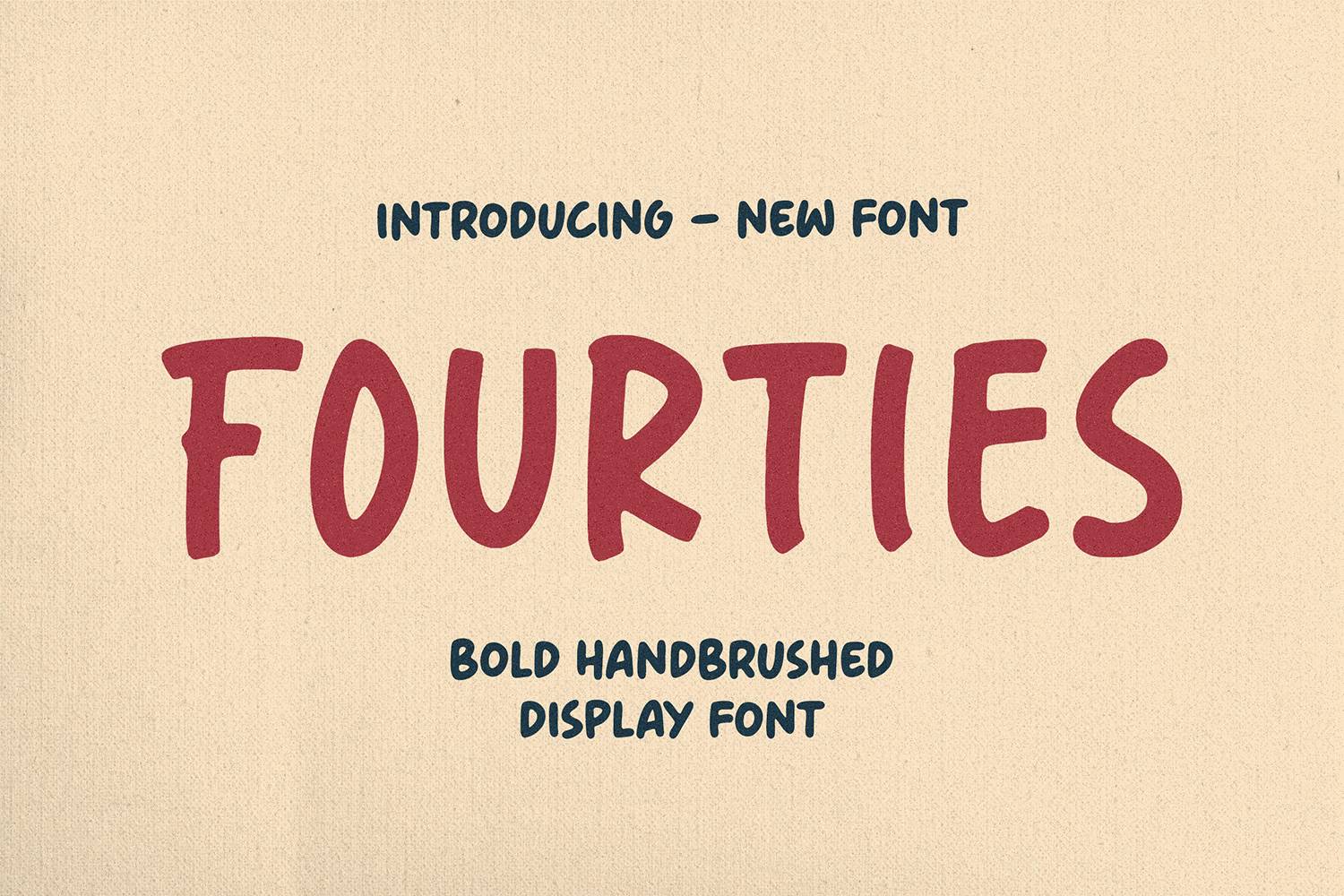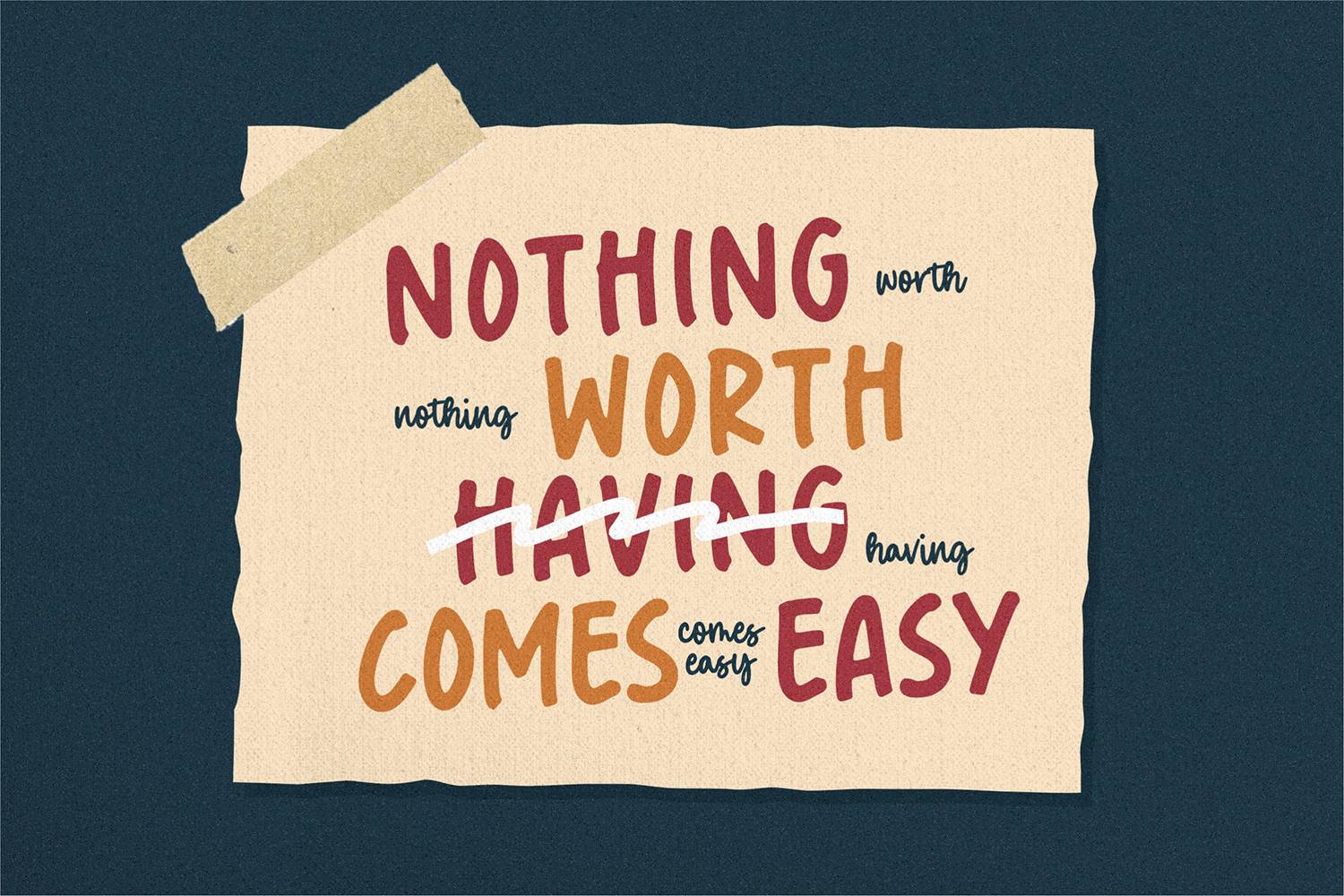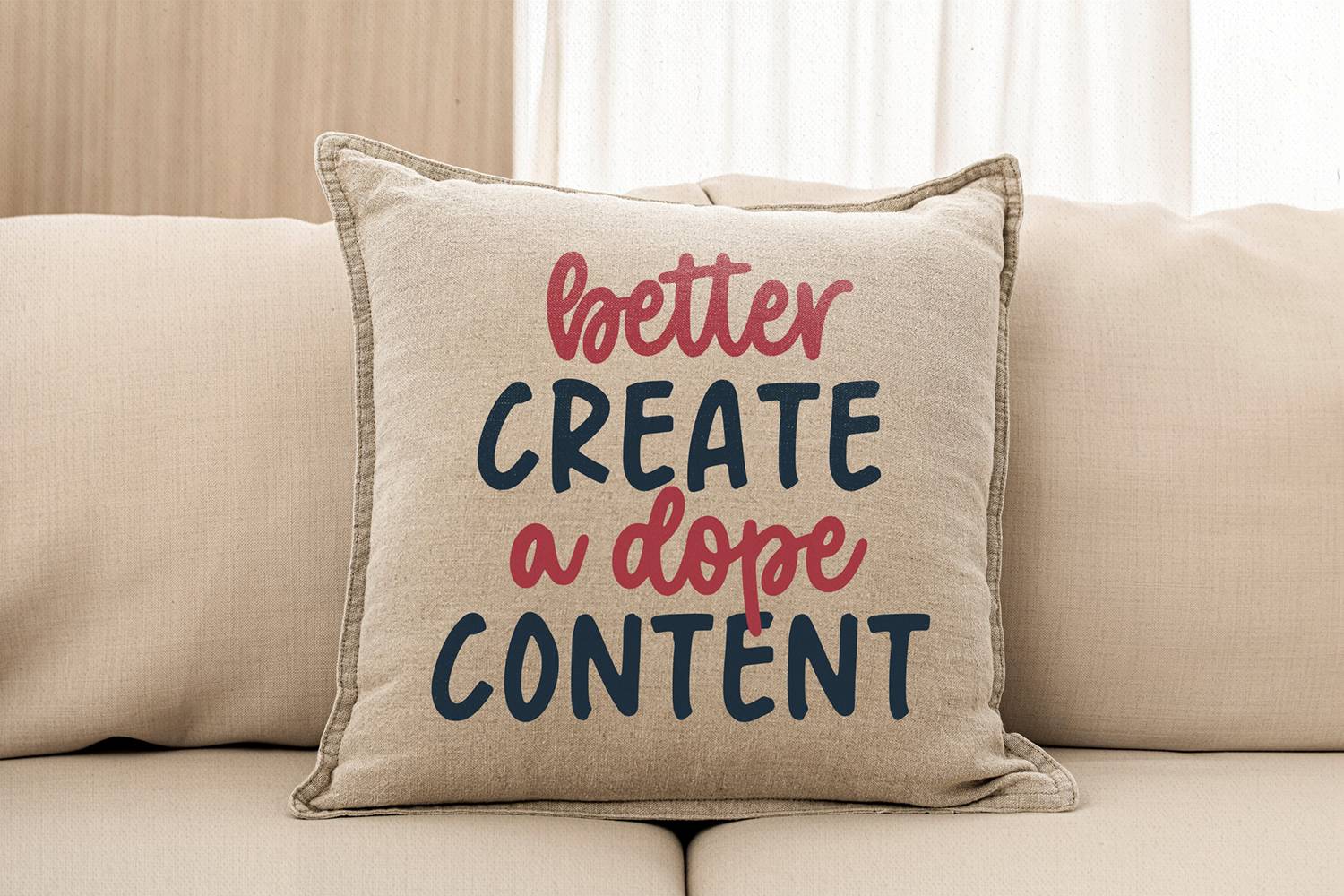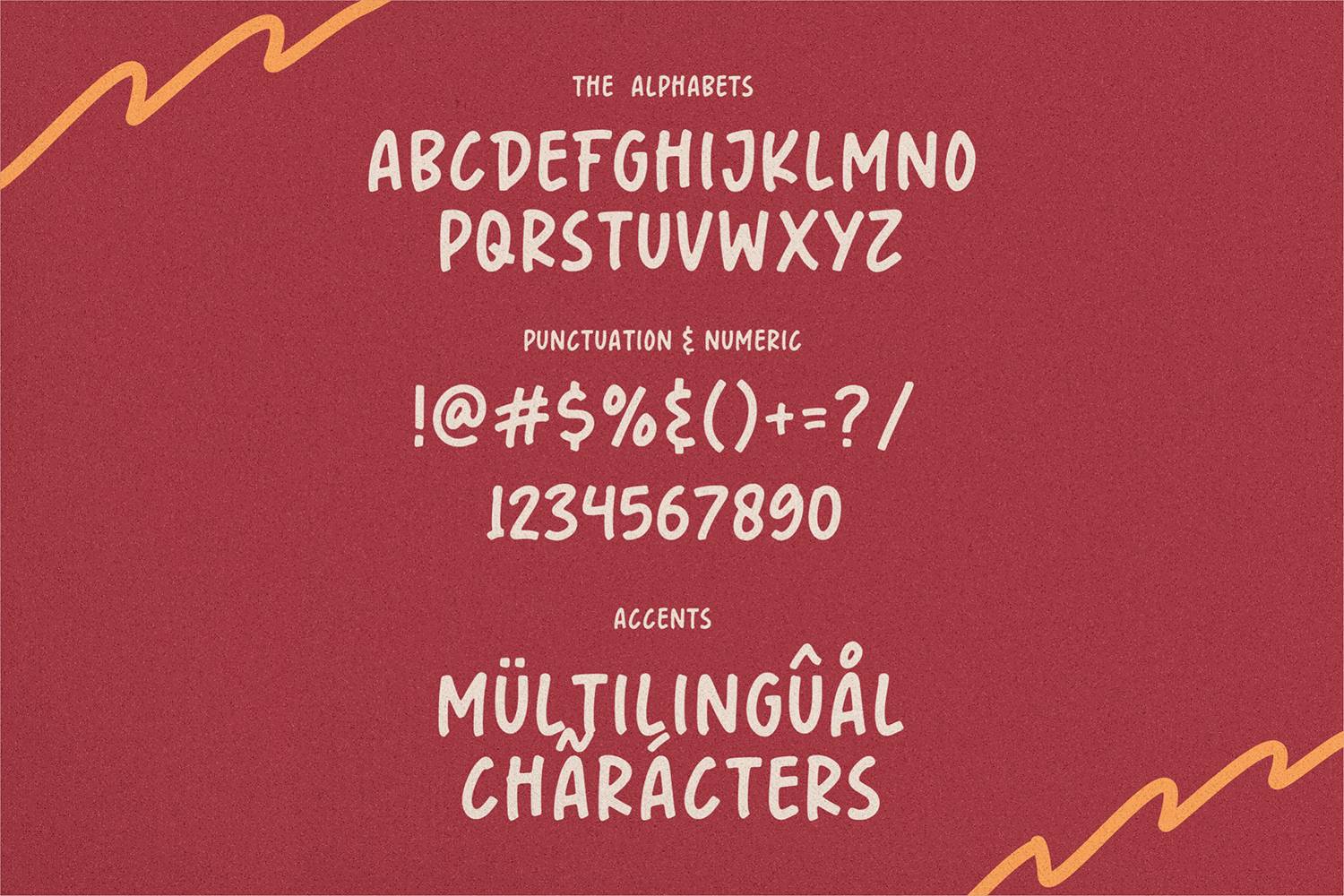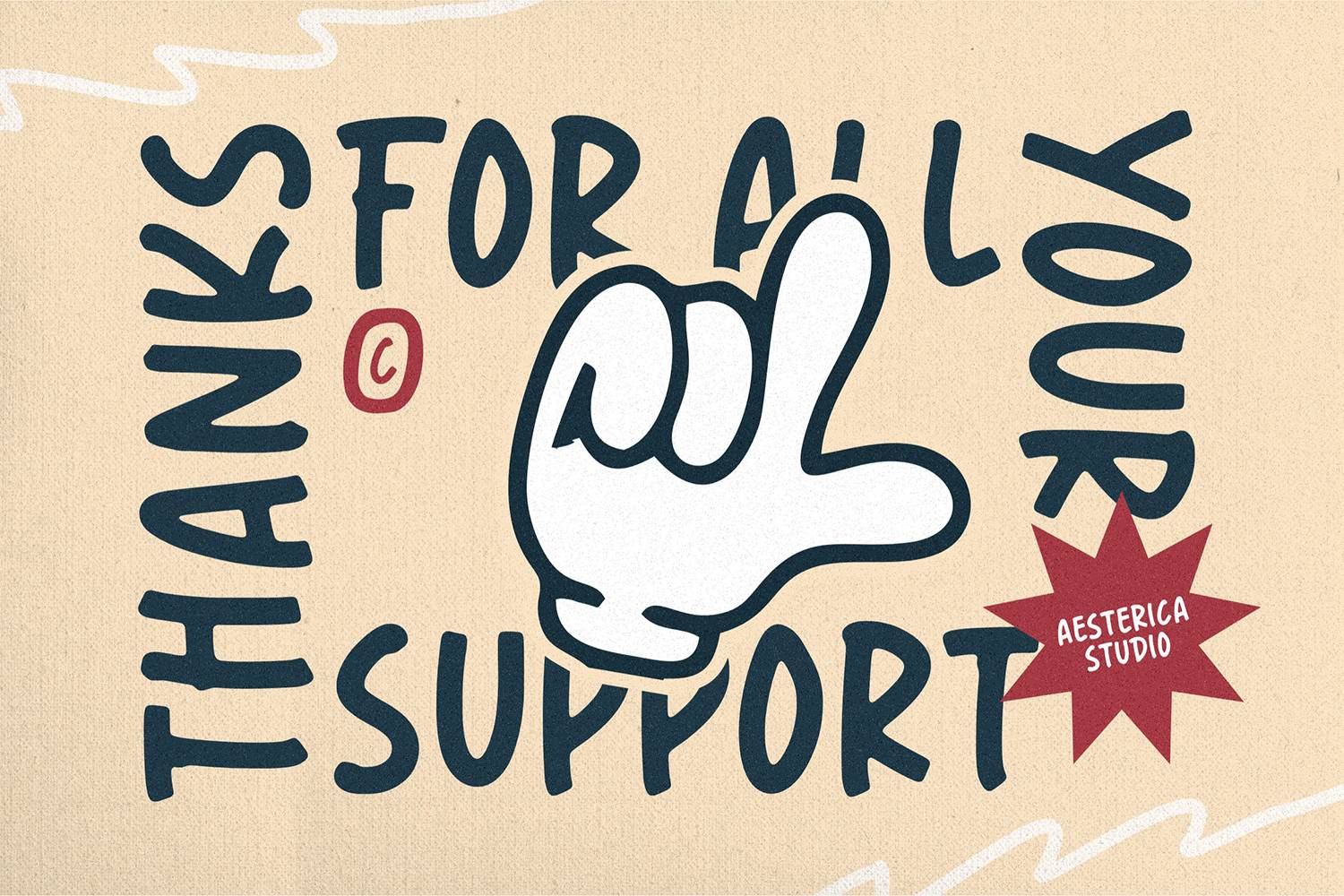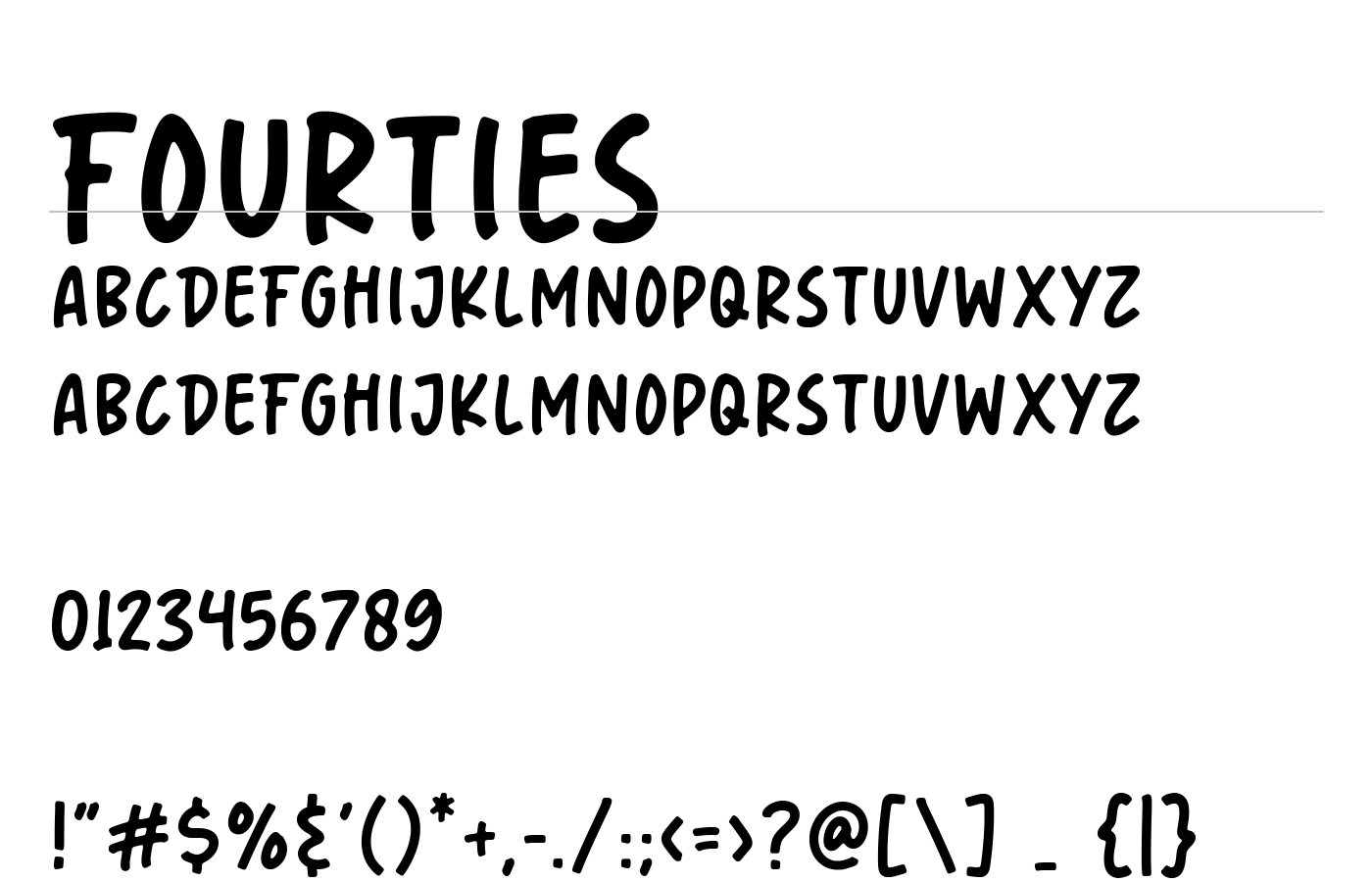
Fourties Font is a playful and casual sans serif typeface with a hand-drawn, slightly irregular style that evokes a friendly, informal feel. Its rounded, moderately wide letterforms and consistent stroke weight make it approachable and easy to read, perfect for brands or projects seeking a fun, approachable vibe. This font works well for headlines, packaging, and creative designs where a relaxed, lively personality is desired.
Fourties Font
About Fourties Font